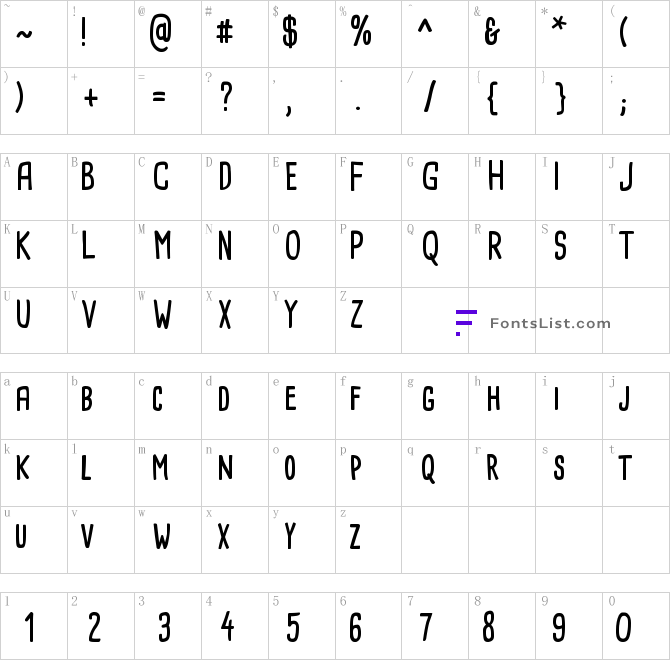
- Font Name:Cardenio Modern
Cardenio-Modern-Bold.ttf is a very beautiful artistic font, Cardenio-Modern-Bold.ttf is widely used in the design and printing of various books and pictures,Cardenio-Modern-Bold.ttf has a strong visual impact,Cardenio-Modern-Bold.ttf is a commonly used font in newspapers, magazines and books, and is used in posters, e-commerce Poster design, store design, logo design, font design and other fields.Cardenio-Modern-Bold.